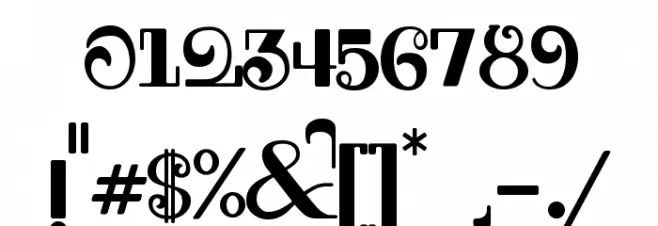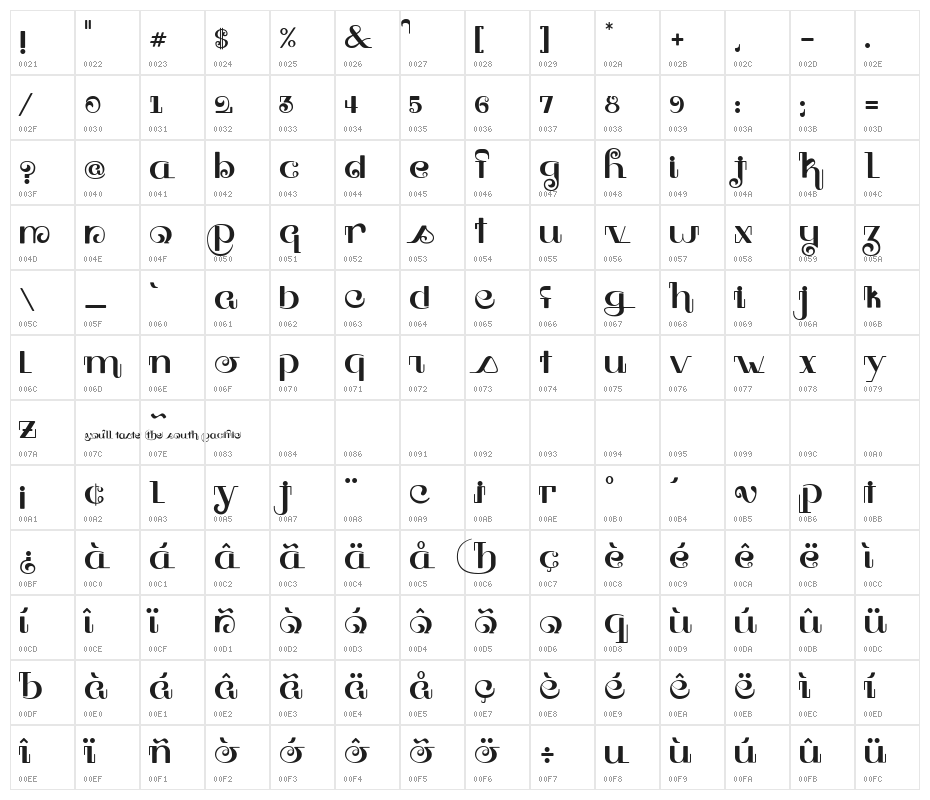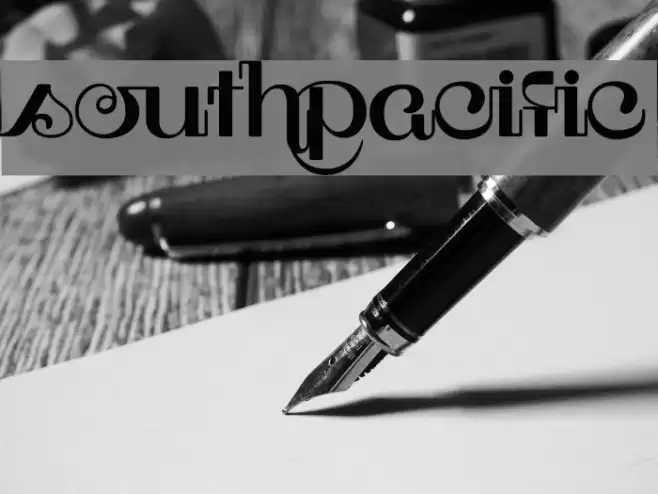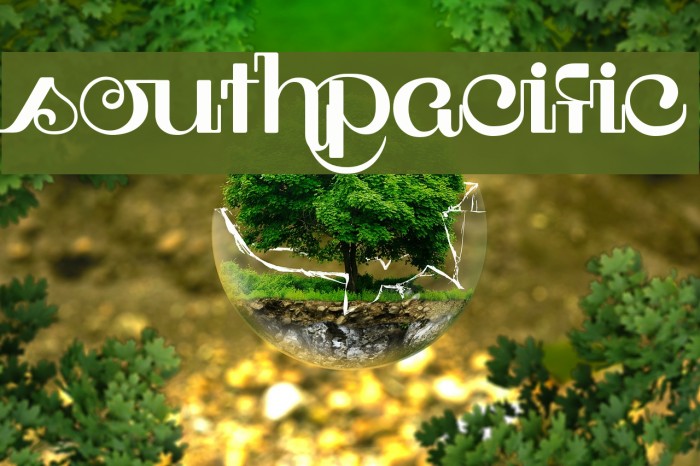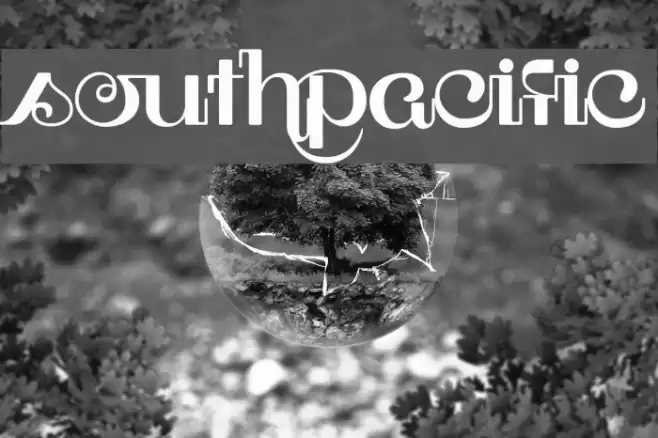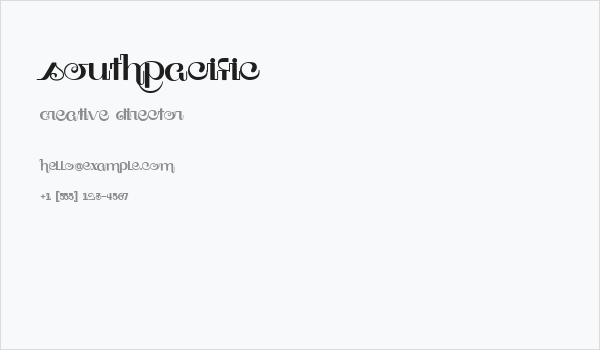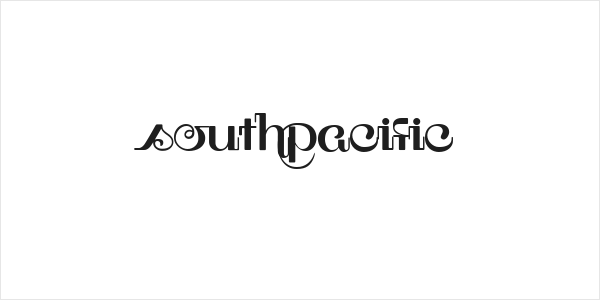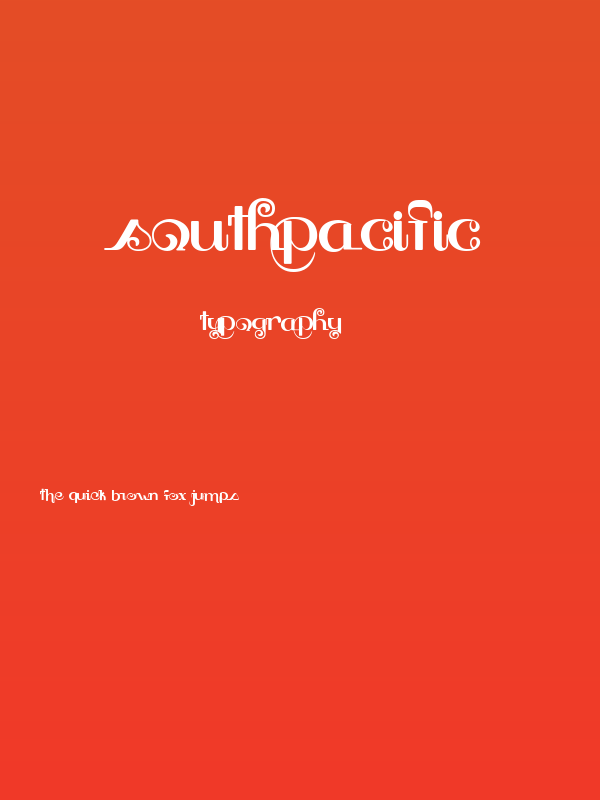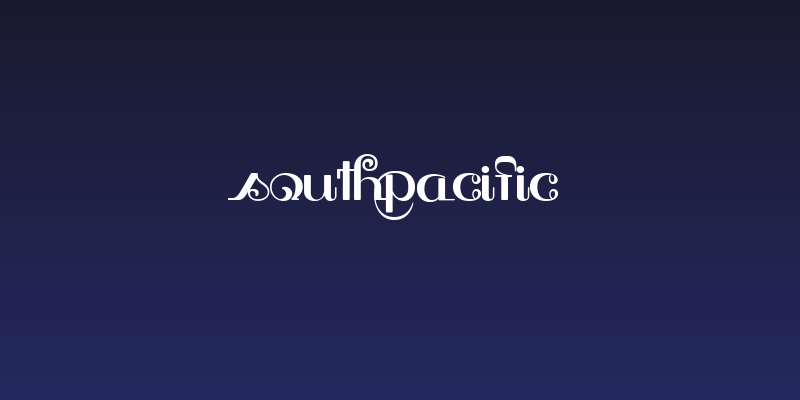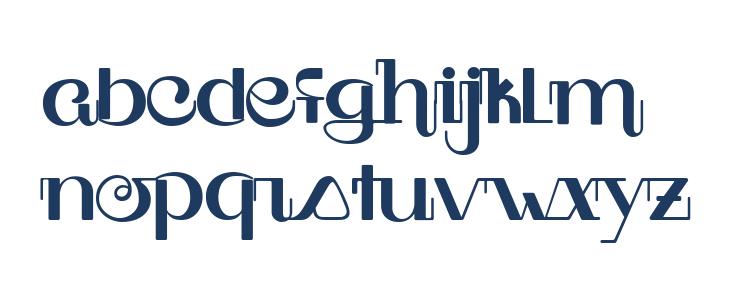
SouthPacific Font
SouthPacific Description
This font features a unique blend of bold and decorative elements, characterized by its playful and artistic flair. The uppercase and lowercase letters exhibit a mix of thick and thin strokes, creating a dynamic contrast that captures attention. The design incorporates swirls and curls, particularly noticeable in letters like 'g', 'y', and 'z', adding a whimsical touch. Numbers and special characters maintain the same artistic style, ensuring consistency throughout. This font's distinct style makes it suitable for creative and expressive projects, where a bold statement is desired.